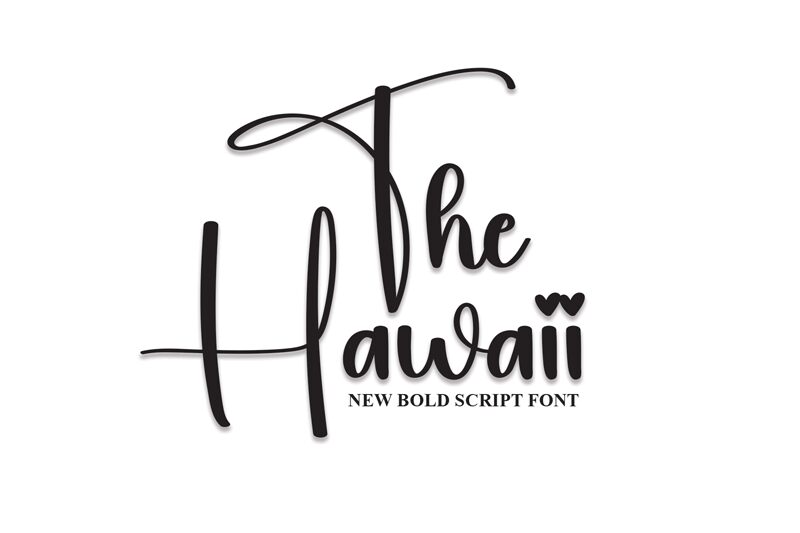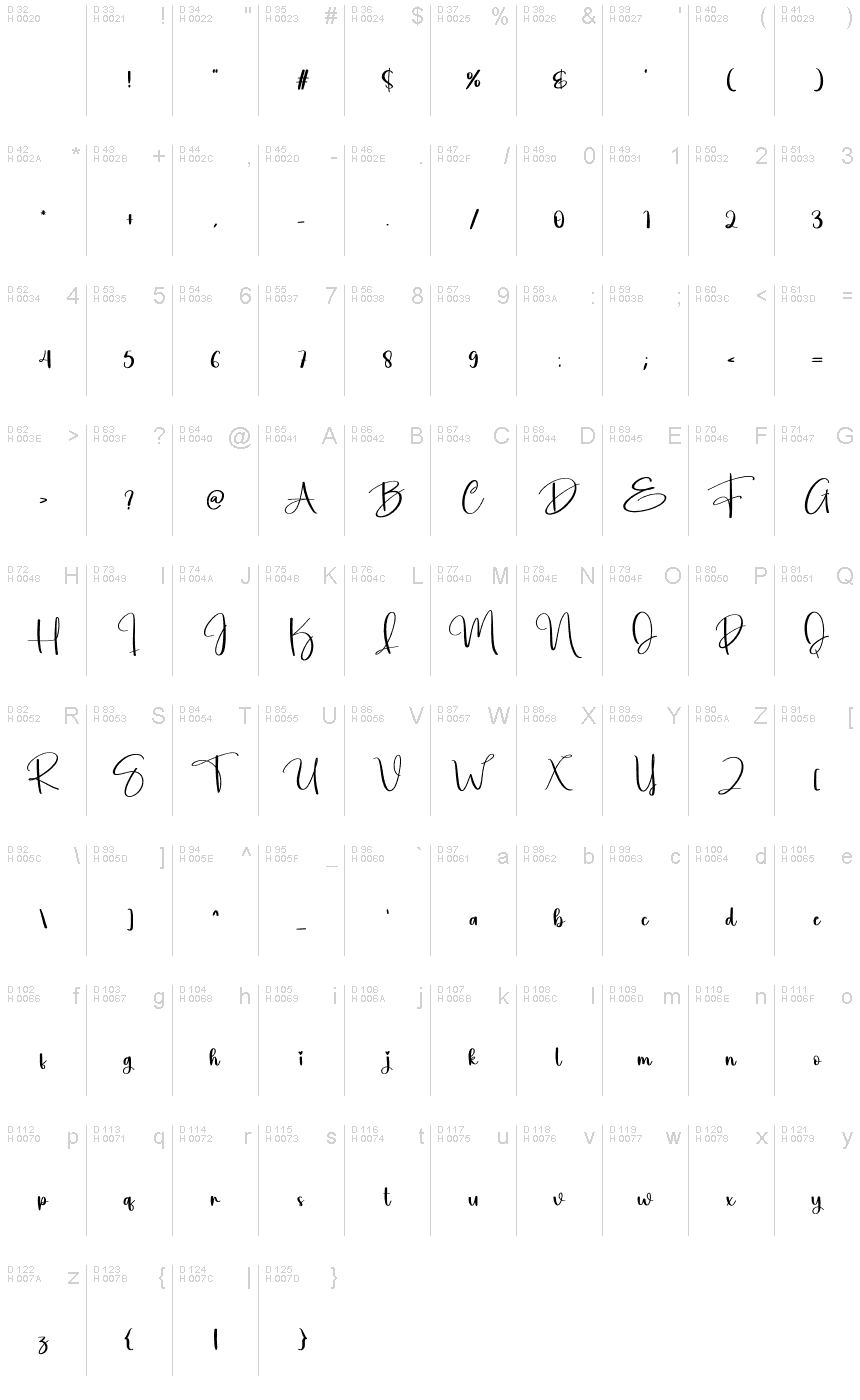
The Hawaii
The Hawaii, a lovely handwritten font by Scratchones, encapsulates the essence of breezy island life. Its semi-light weight adds a touch of delicacy to any project.
With its flowing lines and playful curves, this font is perfect for creating wedding invitations that exude romance and intimacy. The Hawaii also lends itself beautifully to travel blogs, capturing the wanderlust spirit with its organic feel. For branding projects seeking a touch of nostalgia and whimsy, this font brings a sense of warmth and authenticity.
Let The Hawaii transport your designs to paradise.